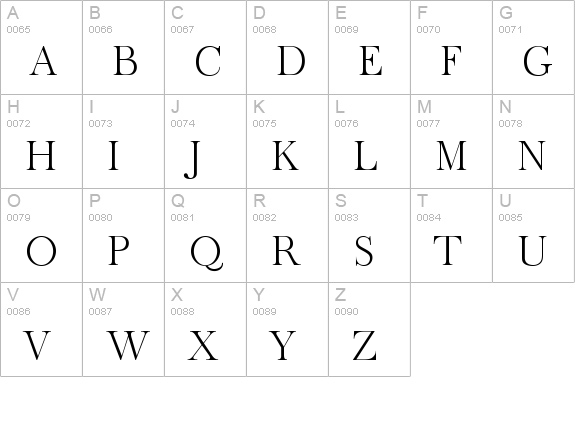
Oldbaskerville-Xlight is a stunning and elegant serif font that exudes sophistication and charm. With its delicate strokes and timeless appeal, this font is perfect for adding a touch of class to any design project. The Xlight weight of Oldbaskerville is particularly versatile, making it ideal for use in body text, headings, and more. What makes Oldbaskerville-Xlight even more appealing is that it is available for free download at FontsMarket.com. This means you can easily access this beautiful font and use it in your projects without any cost. Whether you're working on a professional presentation, a creative poster, or a stylish branding project, Oldbaskerville-Xlight is sure to elevate your design with its classic and refined aesthetic. Download this exquisite font today and add a touch of sophistication to your creations.